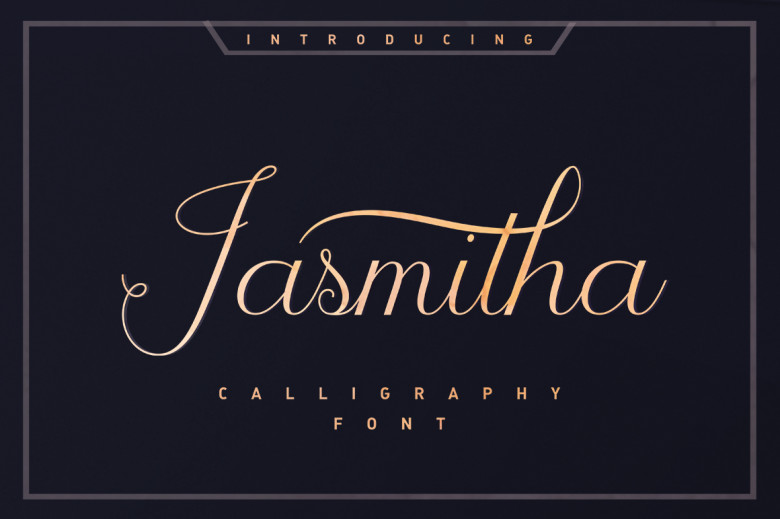
Jasmitha Script Font
Pleased to present Jasmitha Script Font with its modern hand scratches! I hope it piques your interest. Should you wish to incorporate it into your work, this font’s many features – lower and uppercase alphabets, punctuation marks and numbers, support for multilingual languages as well as several ligatures and an alternate style known as Stylistic – should make using it straightforward.
Jasmitha Script Calligraphy Font